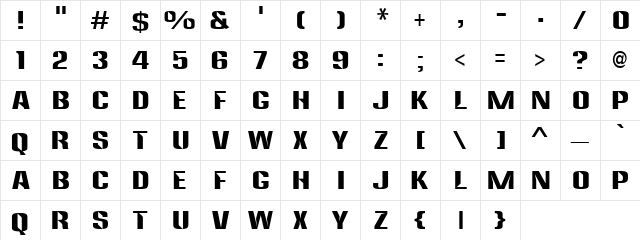
Logical Stand Regular
Design Context for Logical Stand Typeface
Logical Stand takes a measured approach to typography — its balanced proportions and neutral character make it a reliable workhorse for both digital and print work.